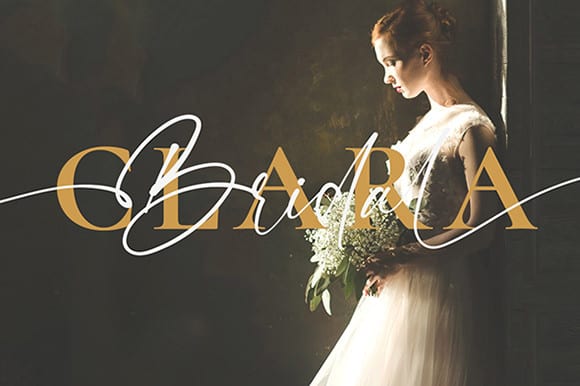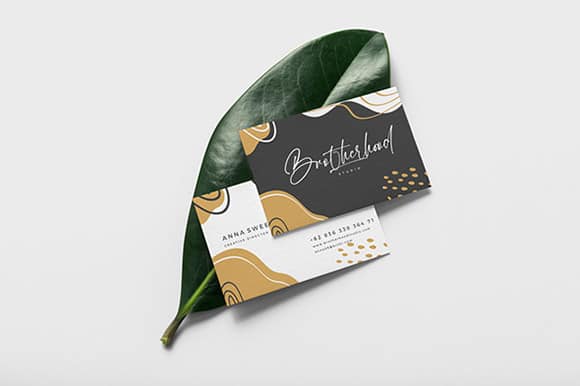
Calloada Script Font
Calloada Script Font is about fleeting vision, touch of moments. some letters may be illegible, but their shapes arouses emotions. sometimes in design emotions are more important. our brain can uncode the letter shapes.